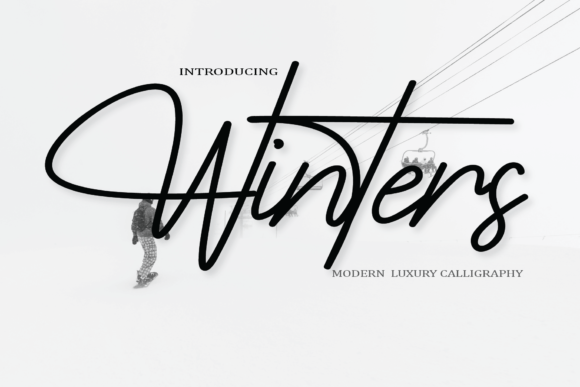
Unleash the captivating allure of Winters Font, the crowning jewel of script fonts, meticulously crafted by the visionary designers at hl_studio. This exquisite creation transcends the ordinary, leaving an indelible mark of elegance and grace upon your creative endeavors.
Immerse yourself in the world of Winters Font, where delicate strokes harmoniously intertwine, forming letters that dance with a fluidity that's simply breathtaking. Marvel at the intricate details that adorn each character, a testament to the artistry and dedication poured into its design.
With Winters Font, your designs will radiate an aura of sophistication and charm. Its enchanting touch will transform your projects into captivating masterpieces, leaving a lasting impression on all who behold them.
But Winters Font is more than just a beautiful font; it's an indispensable tool for map labeling, meticulously engineered to deliver exceptional clarity and legibility. Its characters possess a distinct personality, ensuring that your labels stand out, guiding your audience with precision and clarity.
Don't settle for ordinary fonts that blend into the background. Embrace the power of Winters Font and watch as your designs bloom into radiant beacons of creativity. Its versatility knows no bounds, effortlessly adapting to a multitude of projects, from enchanting invitations to captivating social media graphics.
Join the ranks of discerning designers who have discovered the transformative power of Winters Font. Let its elegance elevate your work, captivate your audience, and leave an enduring legacy of beauty and innovation.